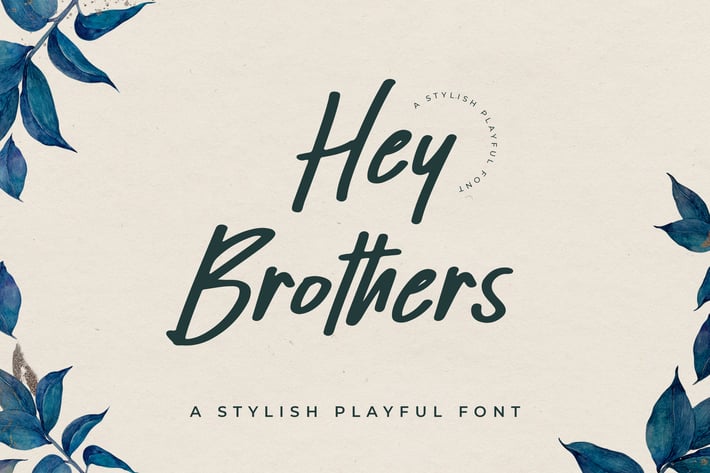
Hey Brothers Friendly Font
Hey Brothers is a refined and adaptable handwritten font. Its distinct and well rounded letters make this font a work of art. Fall in love with its incredibly versatile style and use it to create fashionable designs.